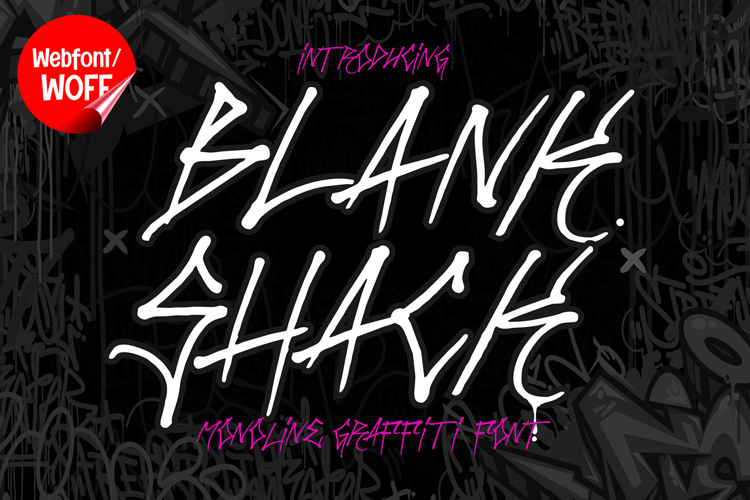
Blank Shack | Monoline Graffiti Webfont
Blank Shack is a monoline graffiti webfont designed to bring a clean and modern street-style aesthetic into contemporary website design. With its smooth single-line strokes and balanced handwritten structure, this font captures the essence of graffiti tagging while maintaining a refined and minimal appearance for digital use. It is an excellent choice for projects that need an urban touch without sacrificing clarity and simplicity.
Blank Shack includes a complete set of uppercase characters designed with a monoline structure. The consistent stroke weight creates a smooth and cohesive look, while the graffiti-inspired forms add character and movement. These letterforms are ideal for headlines, logo-style text, banners, and featured content where a clean graffiti style is needed.
In addition to letters, the font includes numbers and punctuation, making it versatile for various website elements. It can be used for promotional text, navigation highlights, interface accents, and short messages. Each character maintains the same monoline consistency, ensuring a unified and polished visual identity throughout the design.
With multilingual support, Blank Shack includes a wide range of accented characters, making it suitable for international websites and global audiences. This allows content to be displayed clearly across different languages while preserving the graffiti-inspired aesthetic.
The monoline graffiti style of Blank Shack makes it especially suitable for urban-themed websites, streetwear brands, music platforms, creative portfolios, and lifestyle blogs. Its clean stroke design offers a modern interpretation of graffiti, making it adaptable for contemporary digital projects. The flowing lines add a sense of movement and personality without overwhelming the layout.
Despite its simple and expressive appearance, Blank Shack is designed with readability in mind. The spacing and stroke consistency are carefully balanced to ensure clarity, particularly in display sizes and short text applications. This makes it effective for both visual highlights and supporting interface elements.
Blank Shack is a webfont that combines graffiti inspiration with clean monoline precision. Its smooth curves, consistent structure, and modern style create a distinctive typographic look that enhances website design. For projects that require a stylish graffiti touch with clarity and versatility, Blank Shack delivers a balanced and impactful solution.